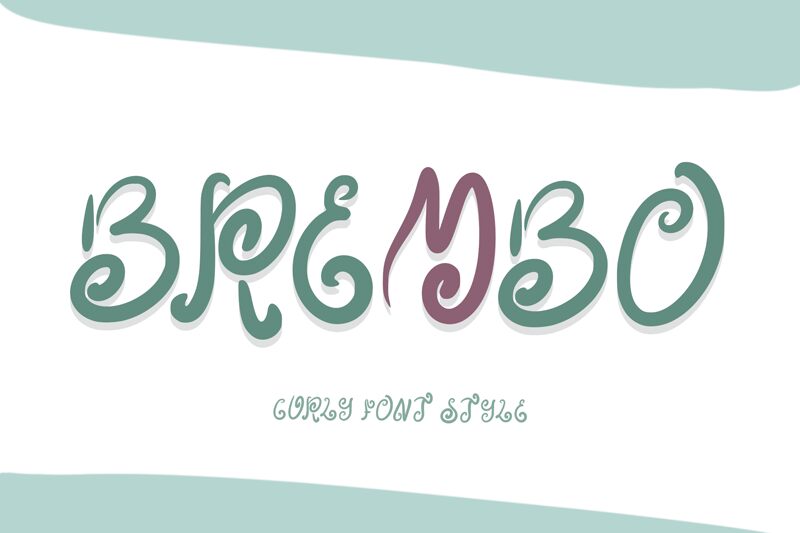
Brembo
Brembo is a free script font by Yoga Letter. The original design uses rounded shapes and a curly style, which reminds us of a beautiful handwriting with a feminine touch.